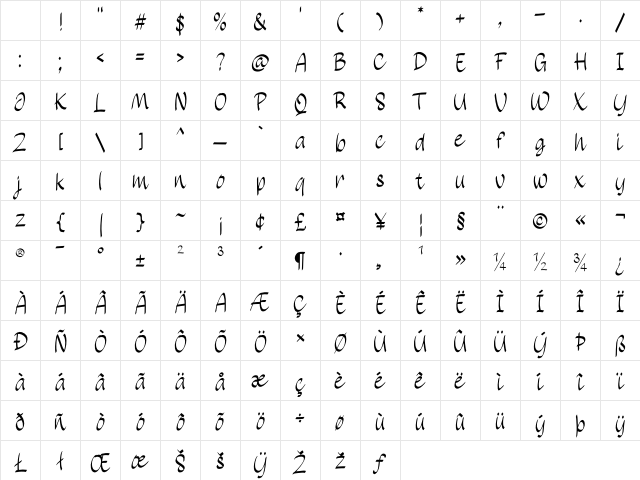
TOONIZO is a composed and adaptable typeface that performs quietly and consistently across a wide range of design contexts.
Pro Tip: Use TOONIZO in both headline and body roles to test its range before committing to a single application.